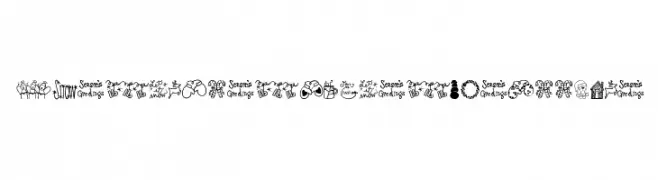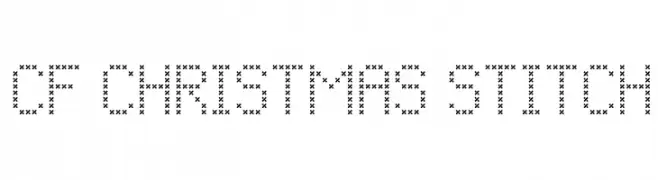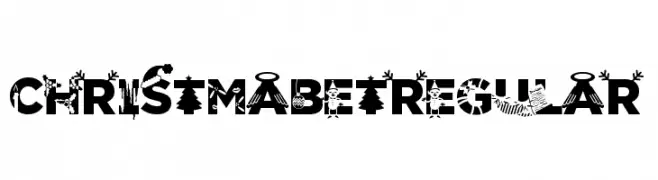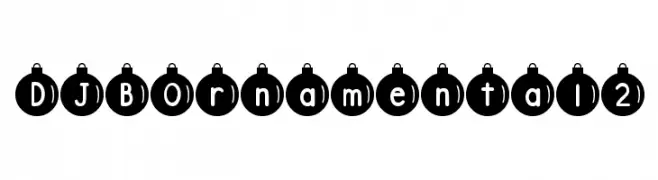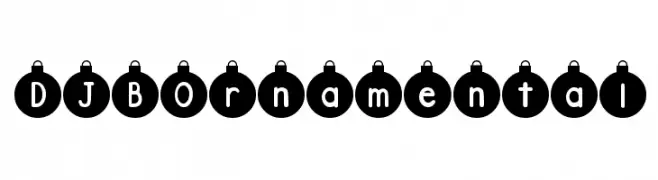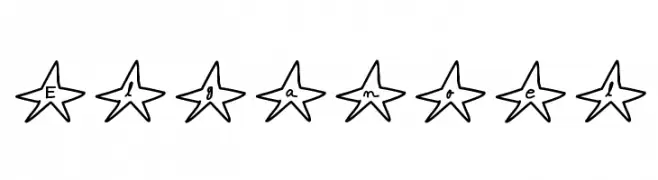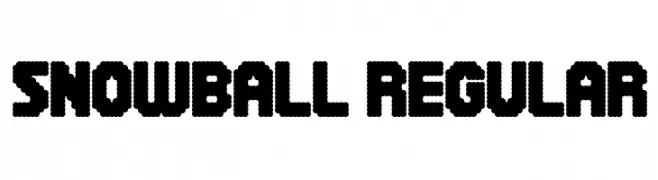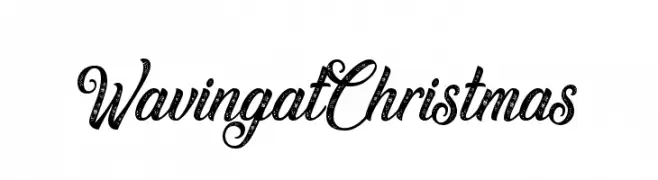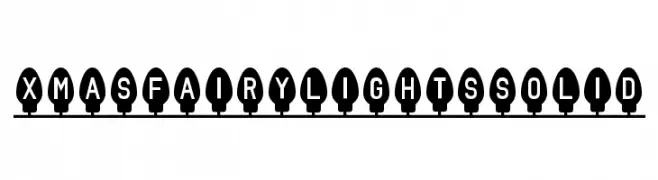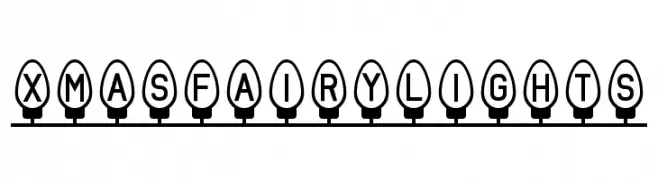
A decorative font with playful Christmas-themed doodles.
A festive, decorative font featuring Christmas-themed elements within each character.
An ornate script font with festive swirls and a textured effect.
A playful, festive font with characters encased in Christmas light shapes.
A festive font with characters inside Christmas light bulb shapes.
A decorative font with a cross-stitch pattern, ideal for festive and handcrafted designs.
A festive, ornament-themed font with bold, enclosed characters.
A decorative font with characters inside circular ornaments, ideal for festive designs.
A whimsical, festive font with characters in star shapes and numbers as Christmas trees.
A playful, bubbly font with a snowball-like texture and rounded edges.